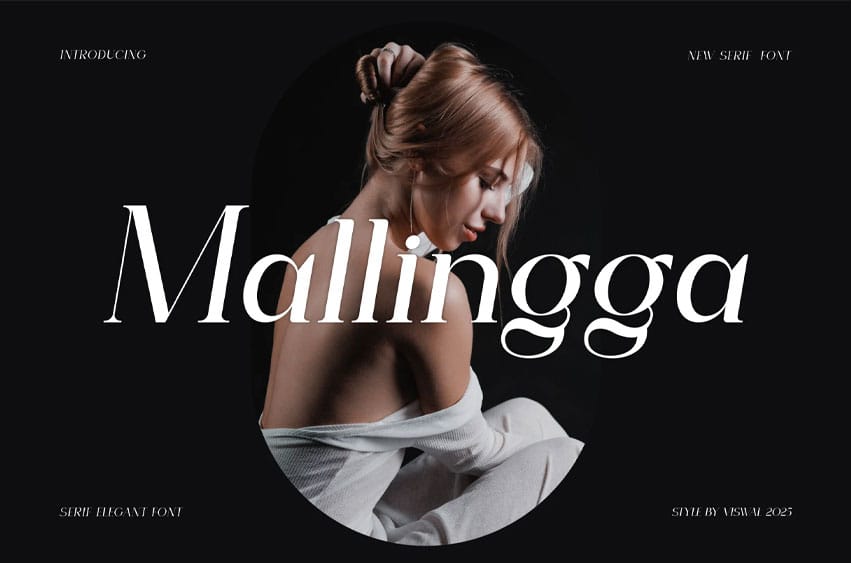
Mallingga Font is a modern sans-serif typeface that makes it easier to convey messages in your design. This font is suitable for logos, labels, badges, branding, magazines, posters, titles, gigs, covers, and more. Our fonts include uppercase and lowercase letters, numerals, punctuation, and OpenType features.
For stunning designs, you can mix it with other fonts as complementary styles.